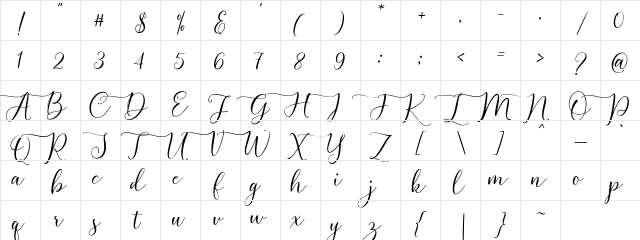
Chandler Script Regular
Design Context for Chandler Script Typeface
Chandler Script flows with the natural rhythm of handwritten lettering, making it ideal for designs that call for warmth and personal expression.
Font Pairing: Combine Chandler Script with a simple geometric sans for maximum contrast — the tension between flowing curves and clean structure is a classic typographic pairing.
Pro Tip: Use Chandler Script for short runs of text — names, titles, or taglines. Extended body copy in script faces tires the eye quickly.